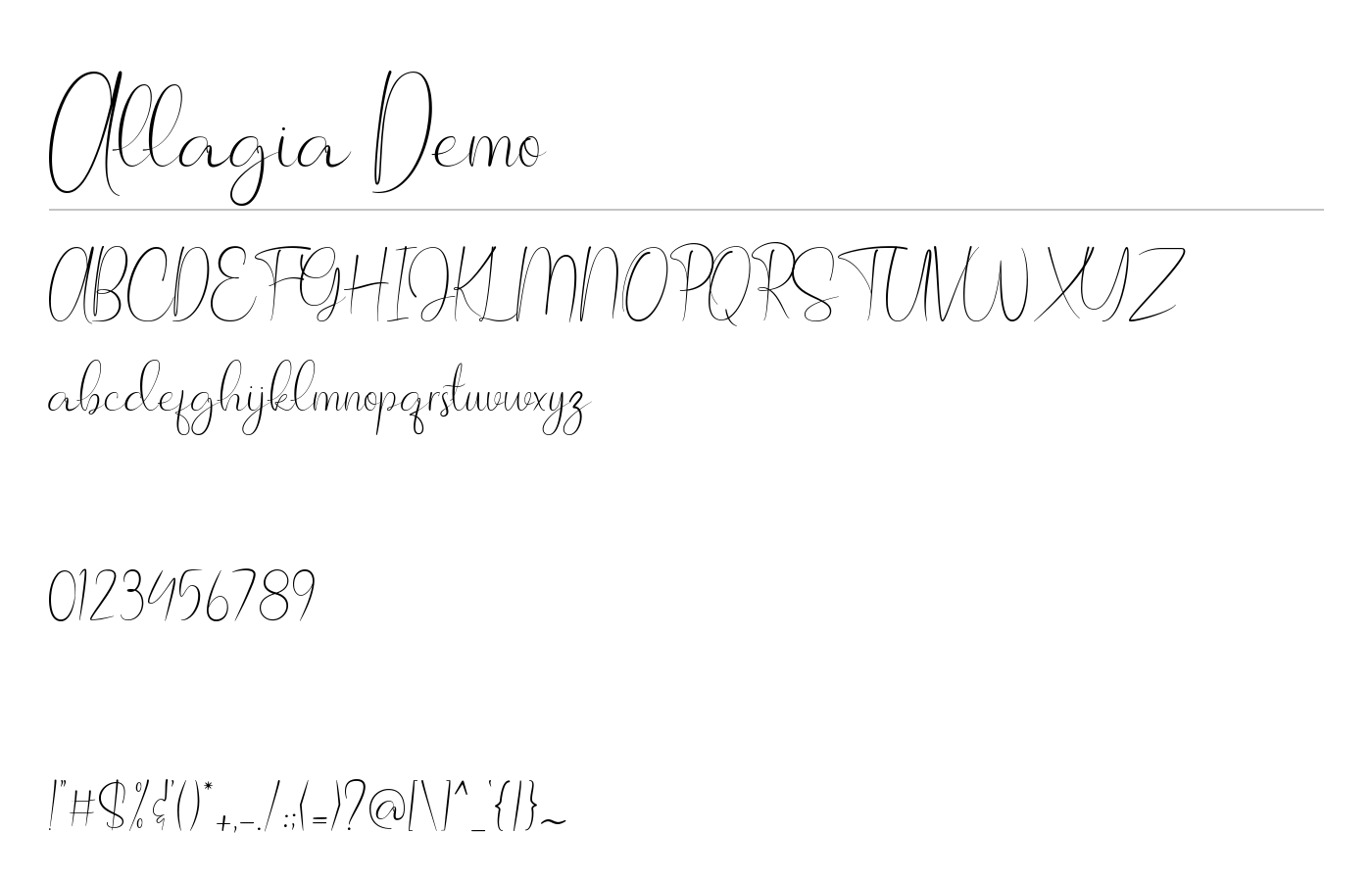
Allagia is a delicate, handwritten script font characterized by its thin, elegant strokes and whimsical letterforms. Its tall, narrow proportions and graceful curves give it a light, airy feel, making it perfect for projects that seek a personal, stylish, and sophisticated touch. This font works beautifully for invitations, branding, and editorial designs where a modern yet intimate aesthetic is desired.
Allagia Font
About Allagia Font